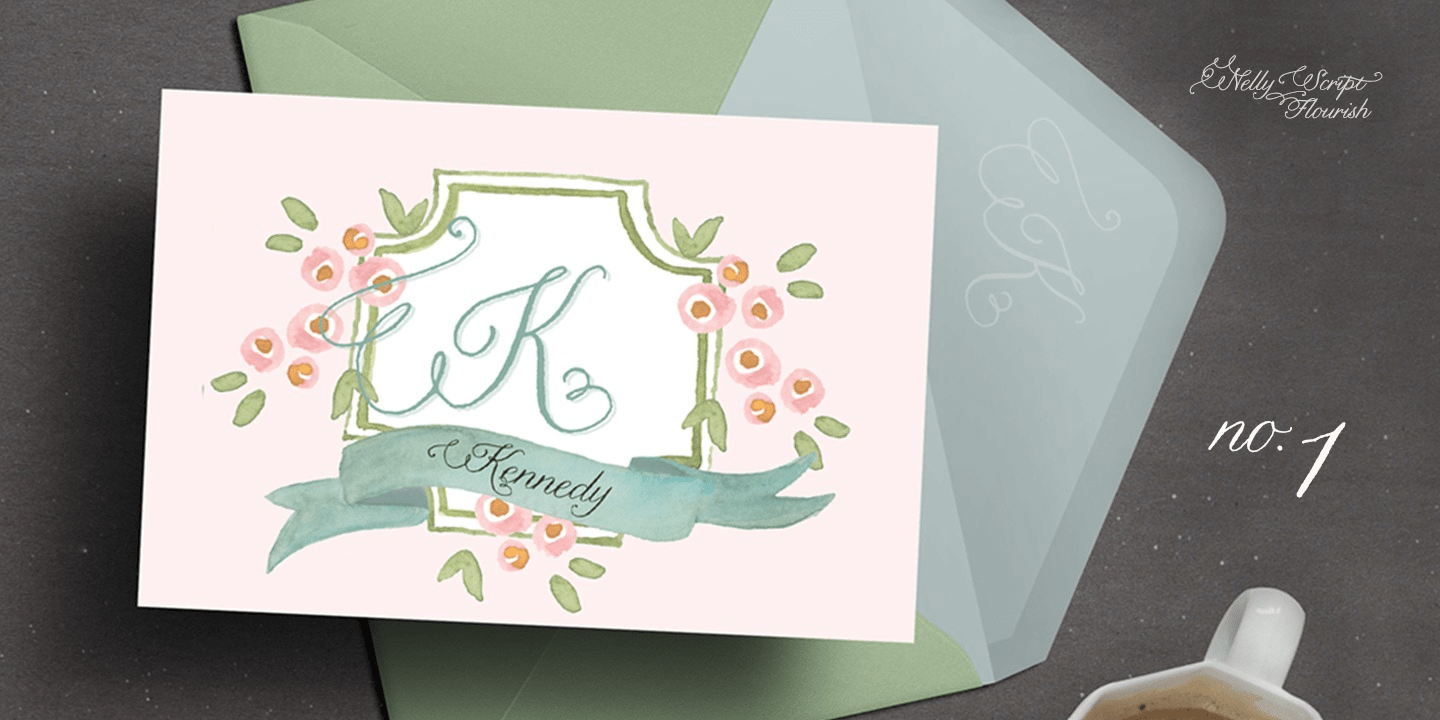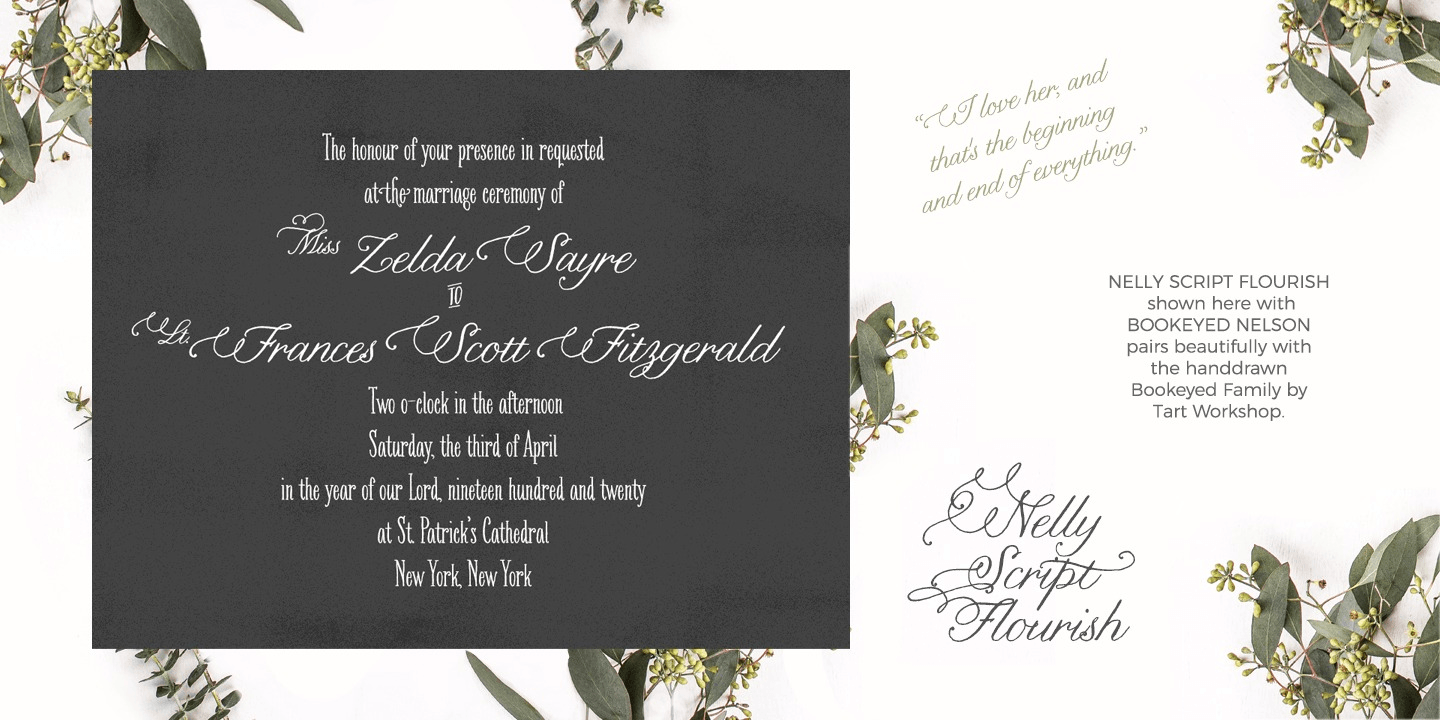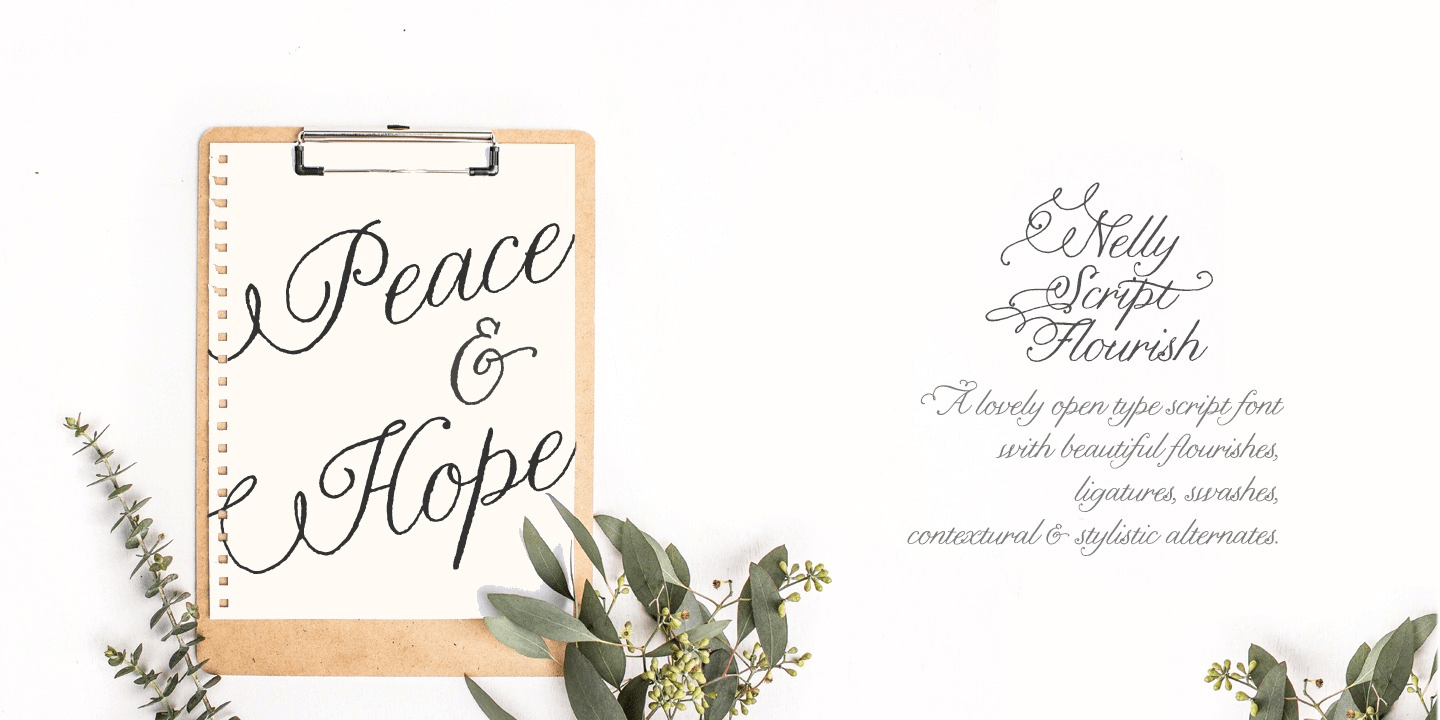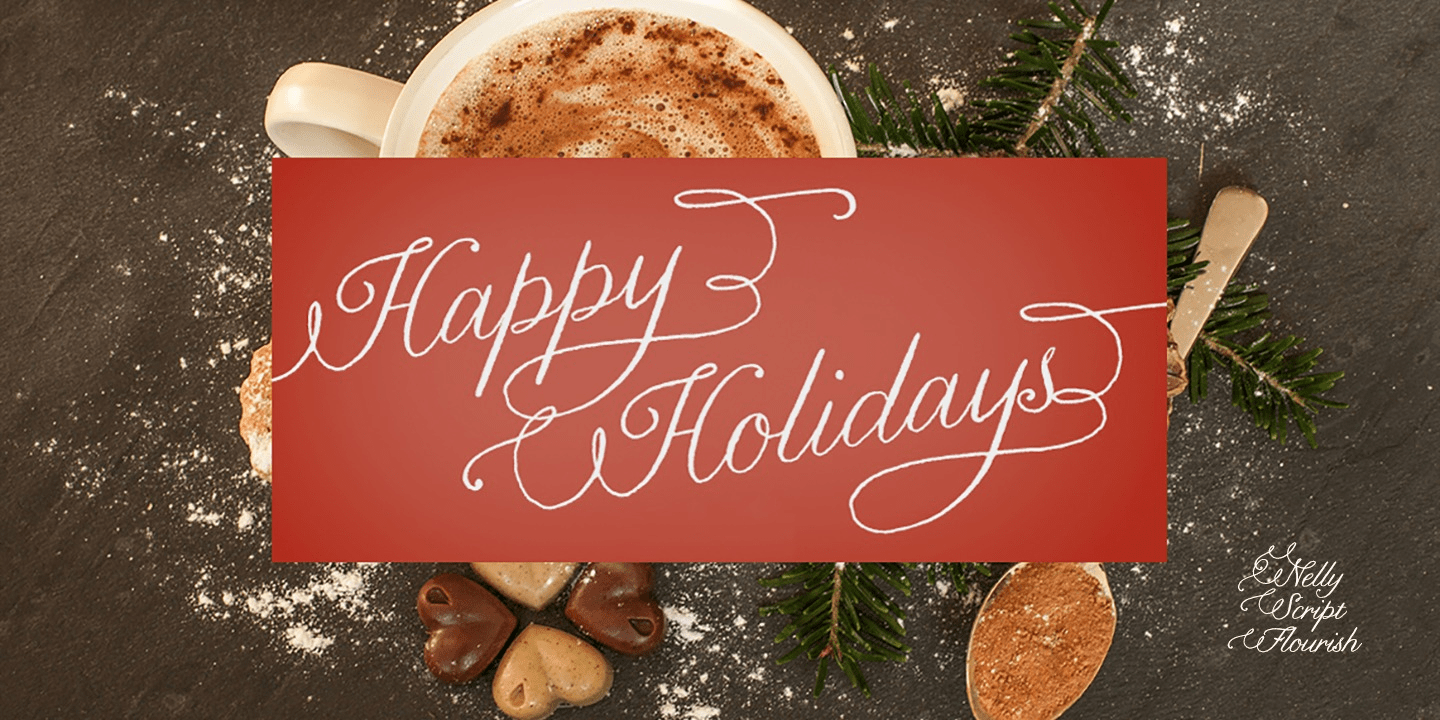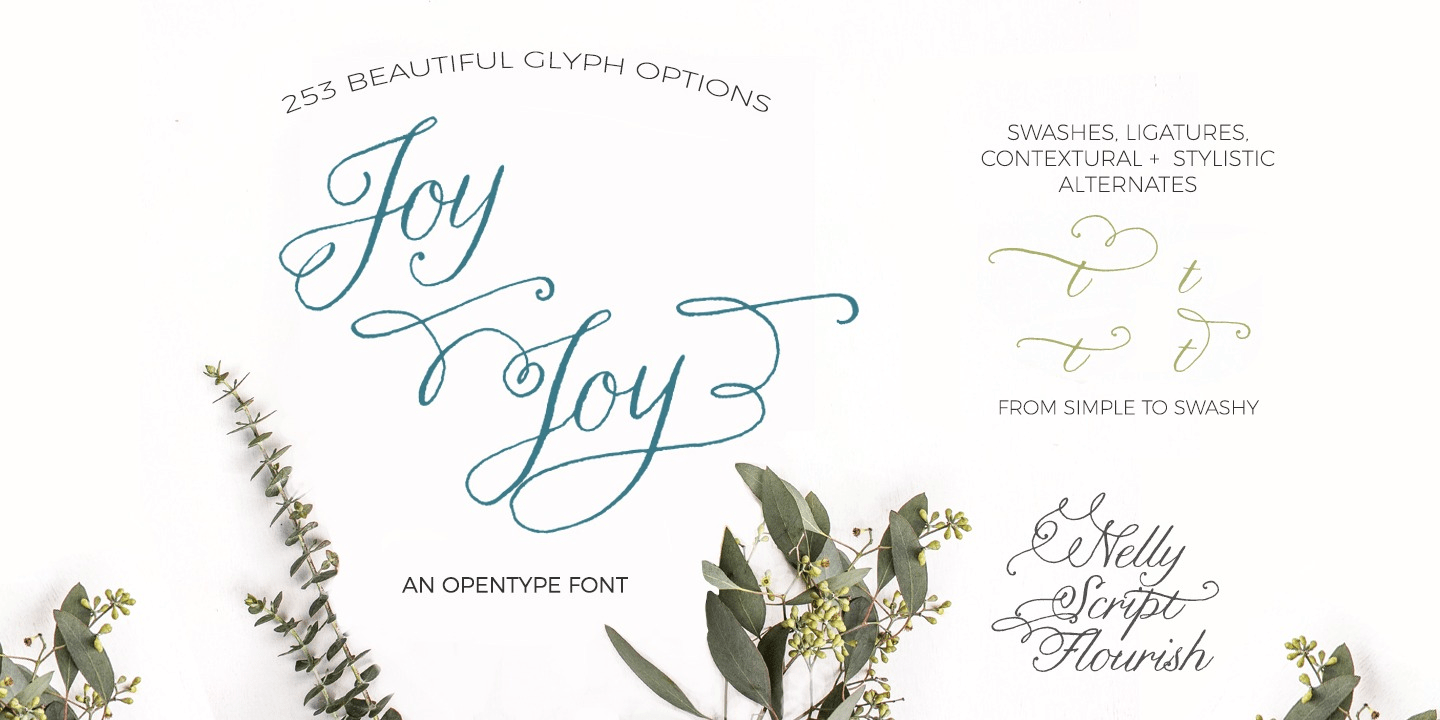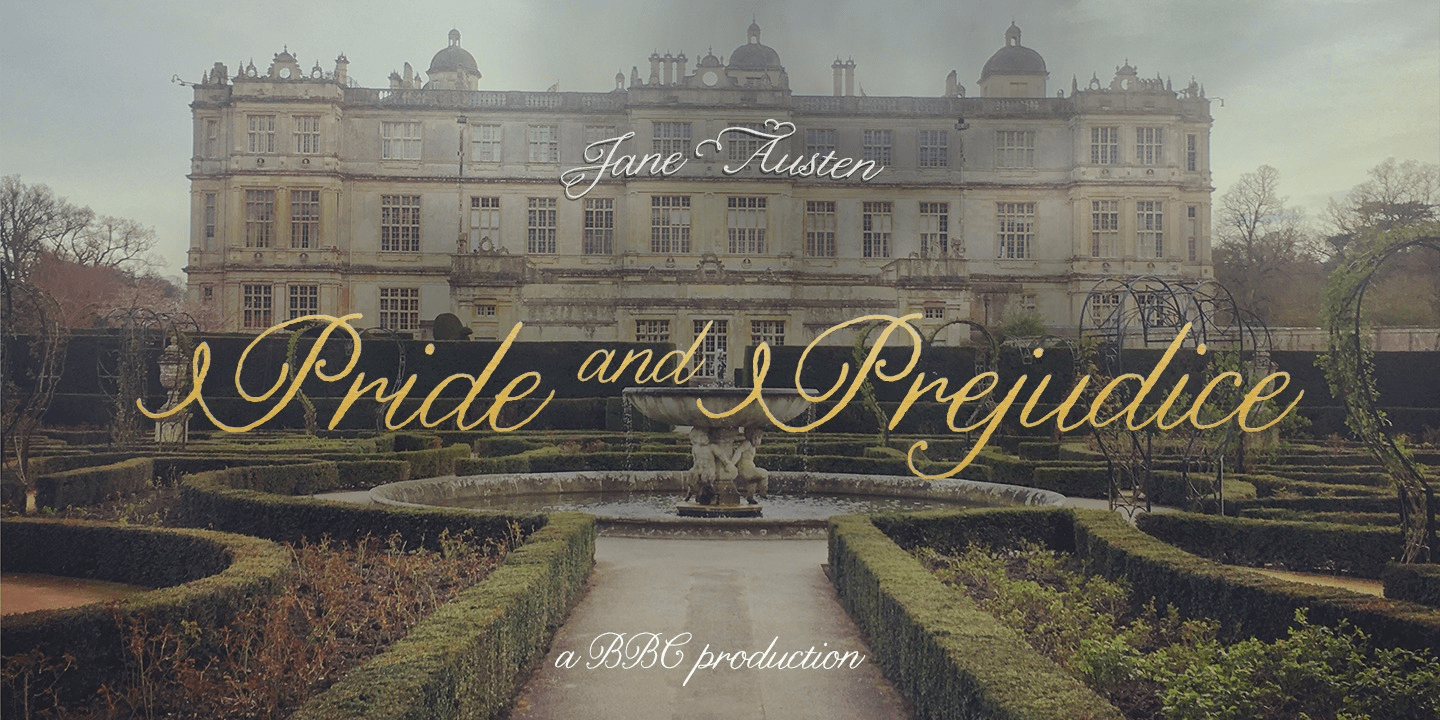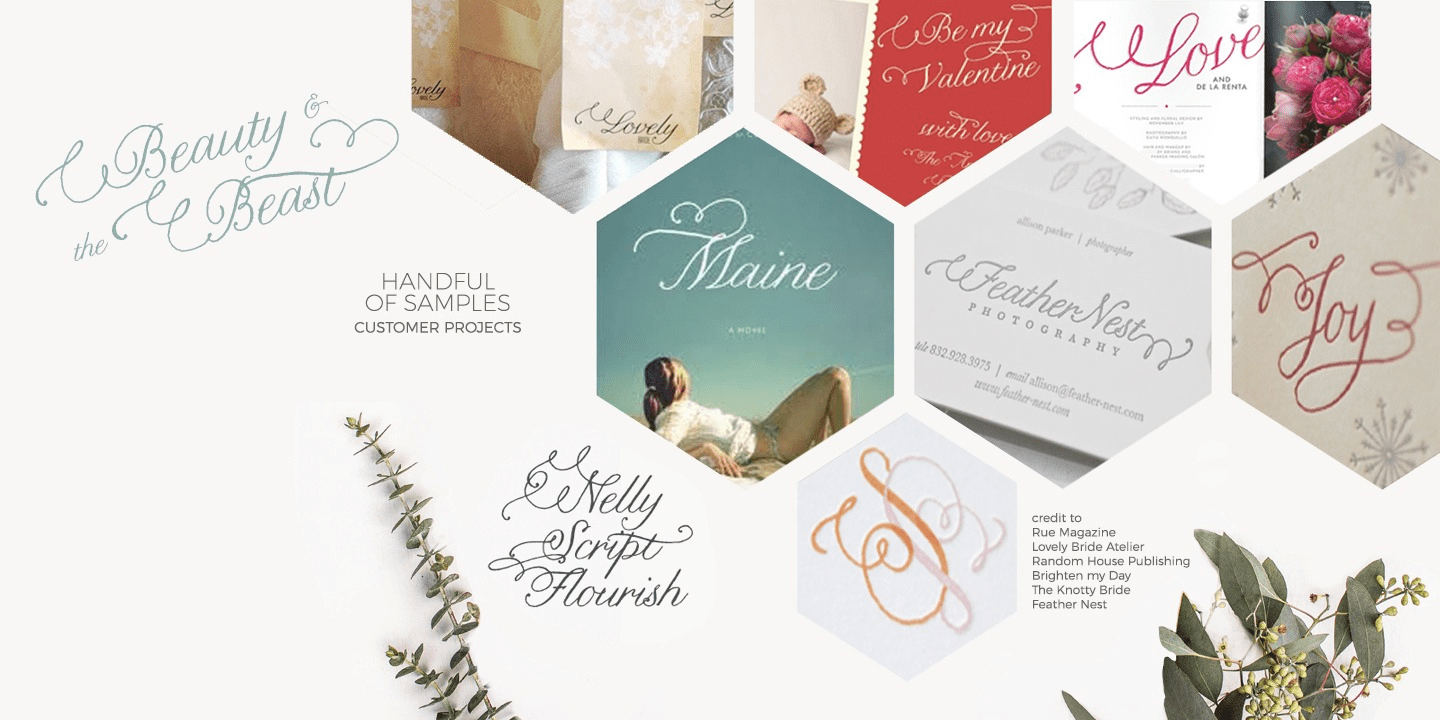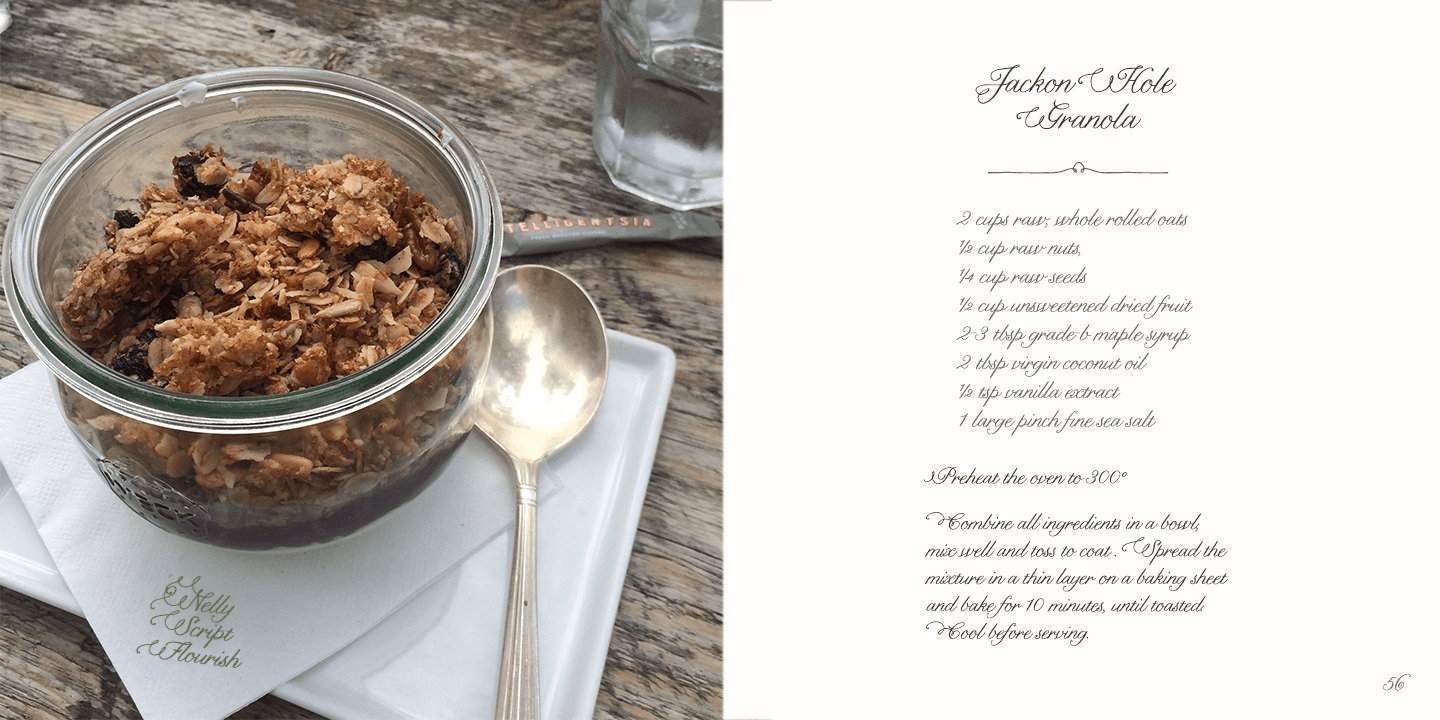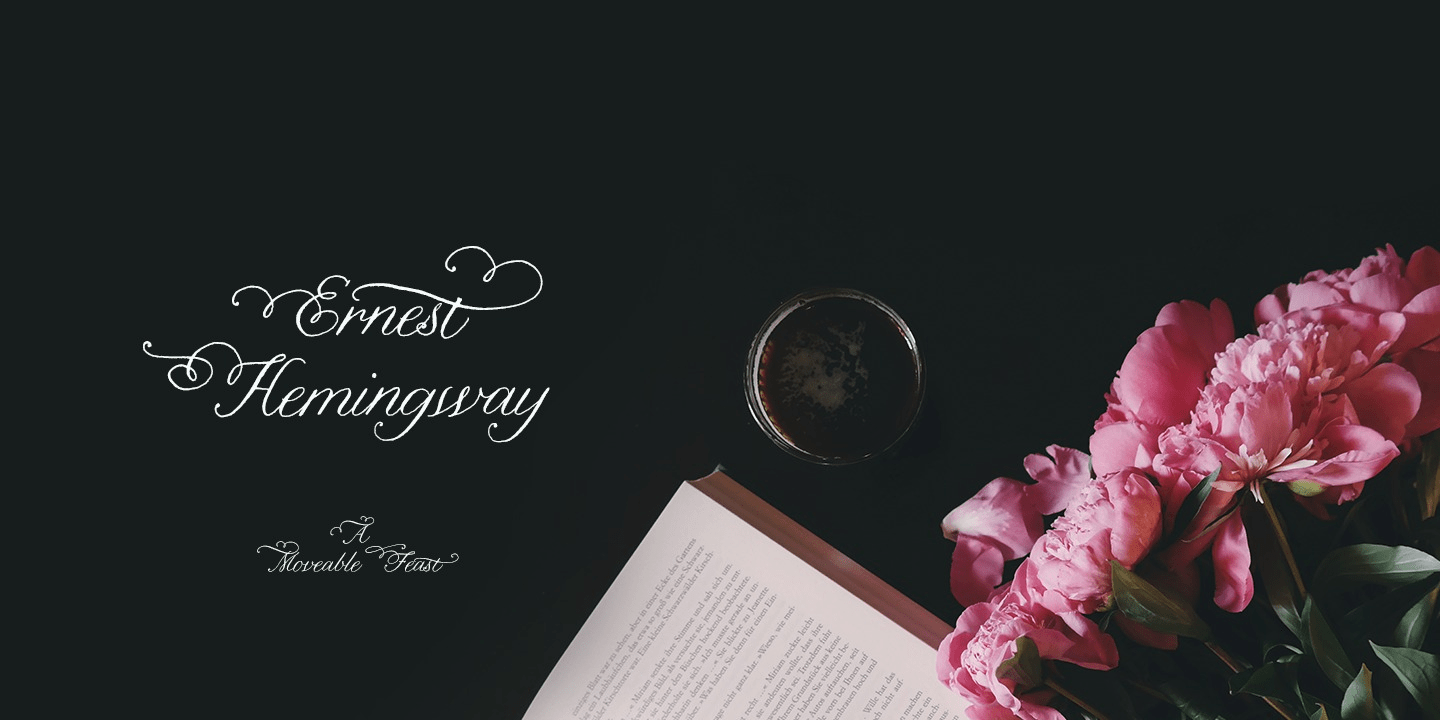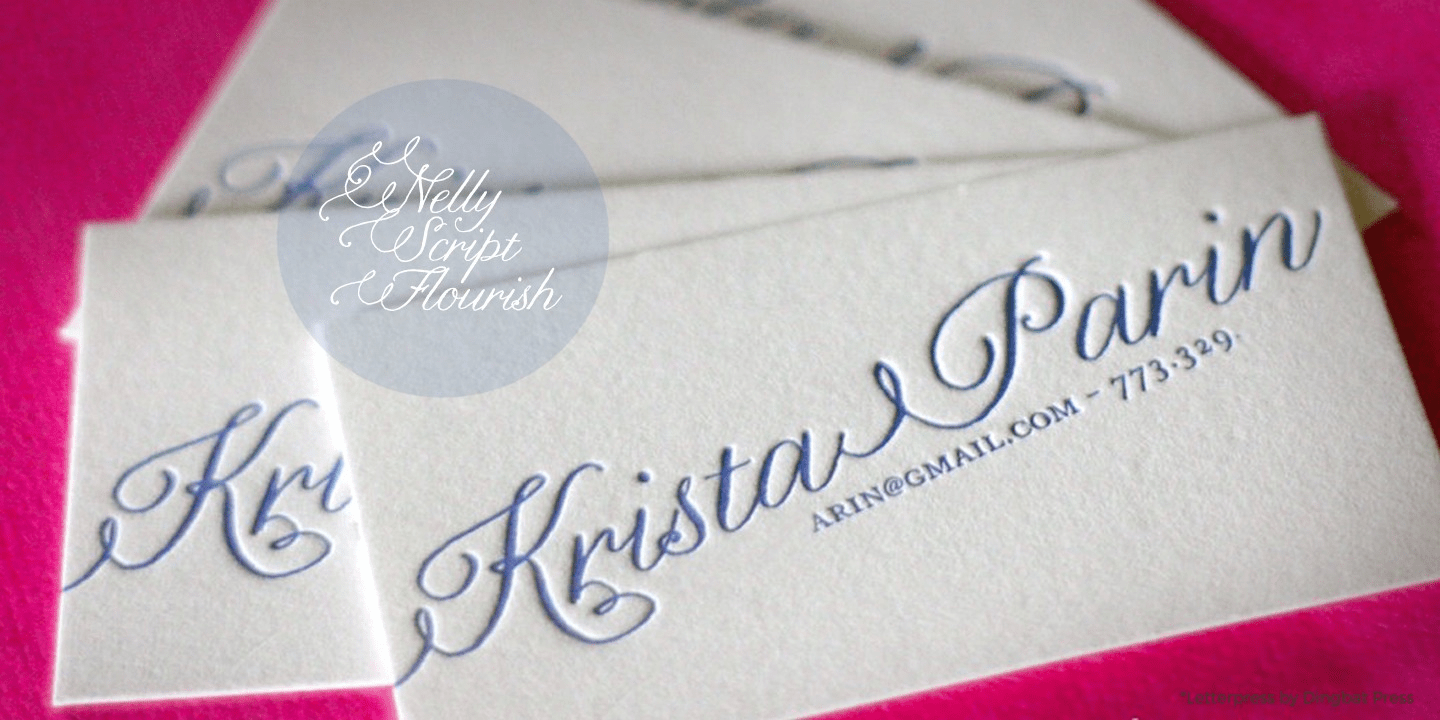
Nelly Script Flourish by Tart Workshop
Nelly is a beautiful yet sensible romantic, clearly hand drawn but easy to read. She’s a bit formal but not stuffy and simply adores a lovely party. Nelly’s a perfect choice for invitations and announcements, especially those of the romantic nature. Nelly Script comes complete with a handful of alternate lowercase forms in OpenType format.